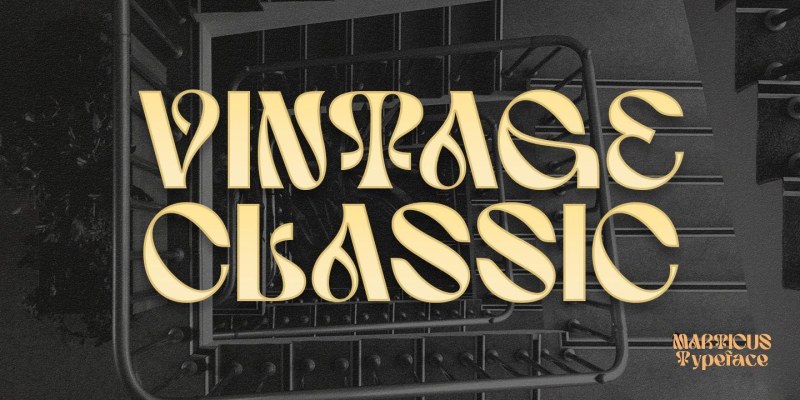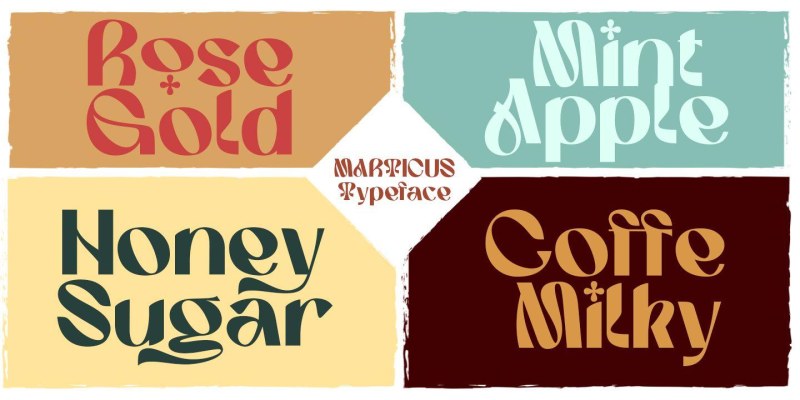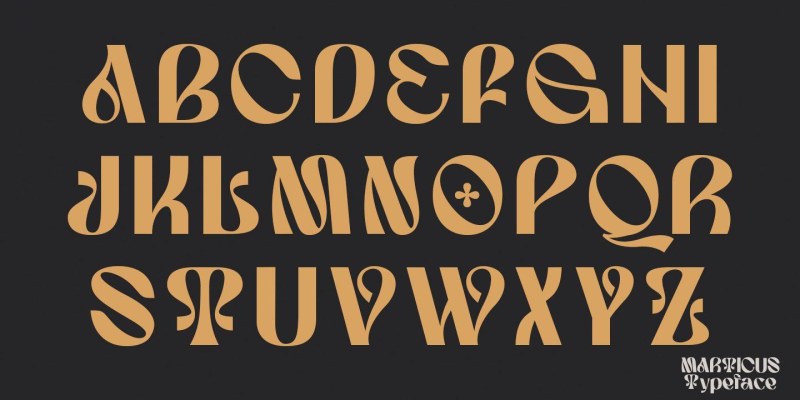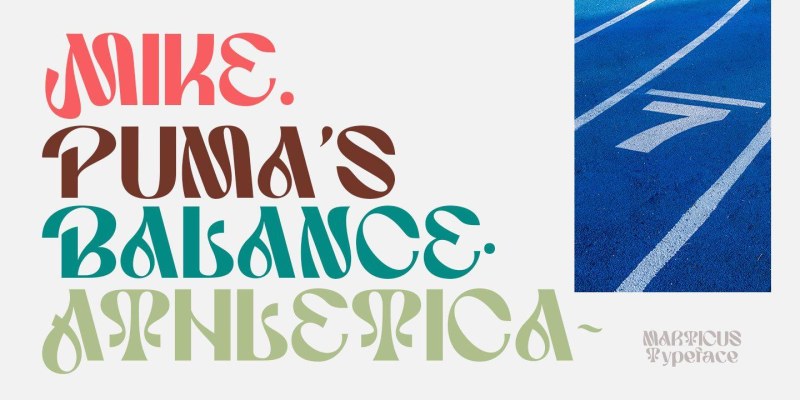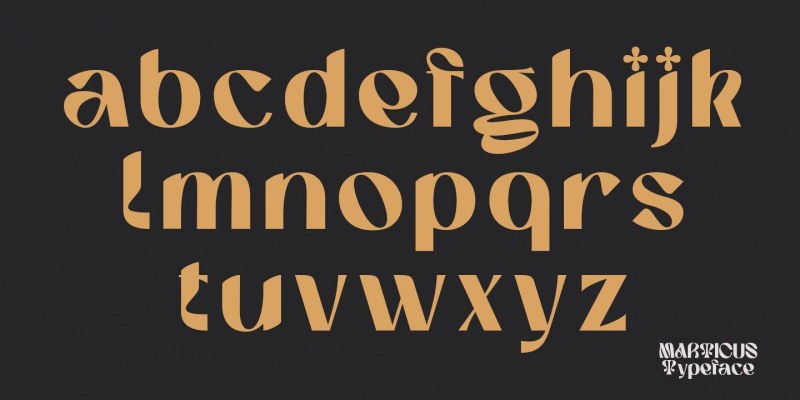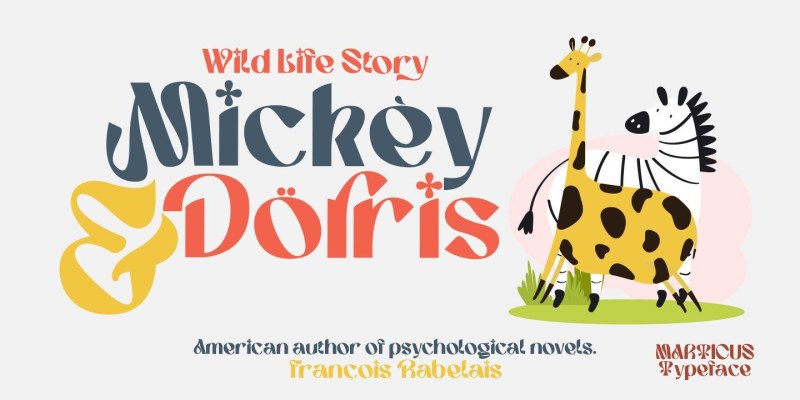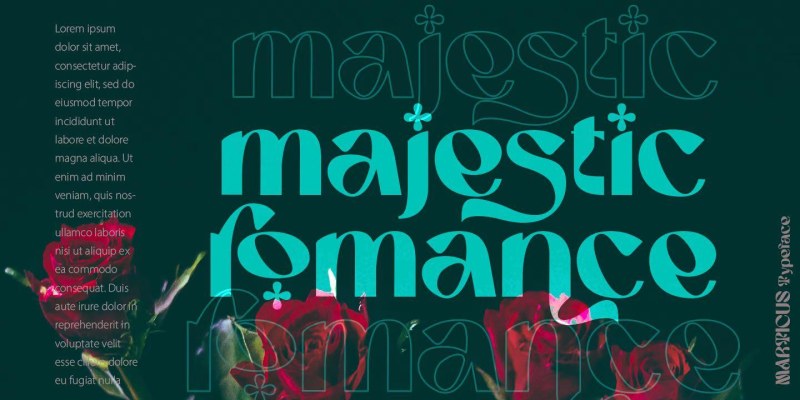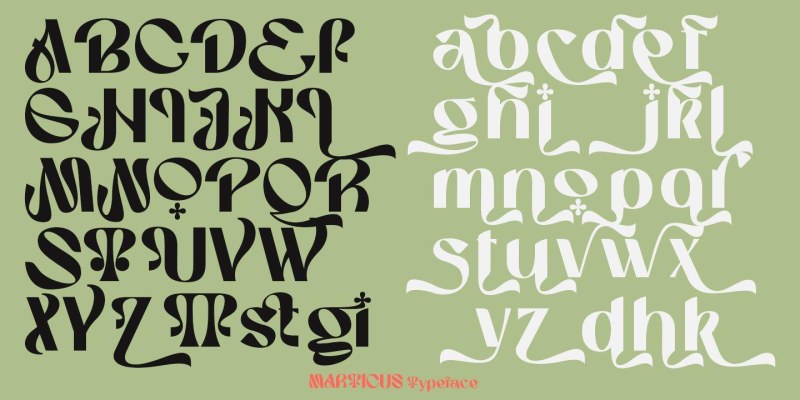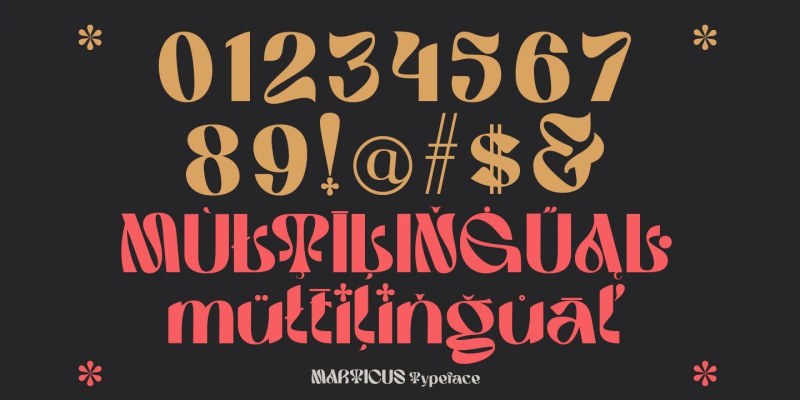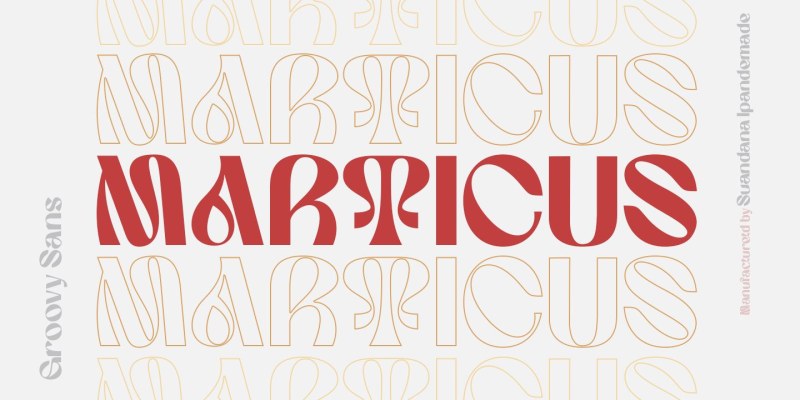
Marticus Font
Introducing Marticus is a Groovy Sans, Comes with unique style and access your OpenType features to access the large selection of alternate letters and ligatures. Use this font for any branding, product packaging, invitation, quotes, t-shirt, label, poster, logo etc.
Marticus Font is a Display Fonts font that brings a professional and versatile look to your projects. Introducing Marticus is a Groovy Sans, Comes with unique style and access your OpenType features to access the large selection of alternate letters and ligatures.